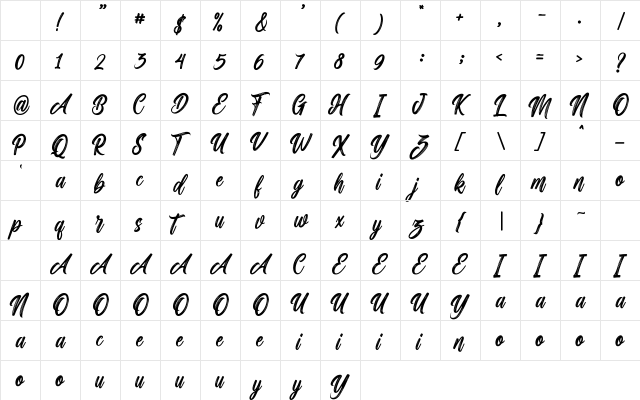
Complete Milestone Brush Regular glyph index. Displaying only characters natively supported by Milestone Brush Regular font.
Milestone Brush flows with the natural rhythm of handwritten lettering, making it ideal for designs that call for warmth and personal expression.
Font Pairing: Combine Milestone Brush with a simple geometric sans for maximum contrast - the tension between flowing curves and clean structure is a classic typographic pairing.
Pro Tip: Use Milestone Brush for short runs of text - names, titles, or taglines. Extended body copy in script faces tires the eye quickly.